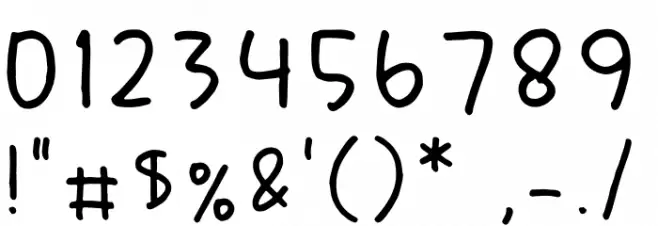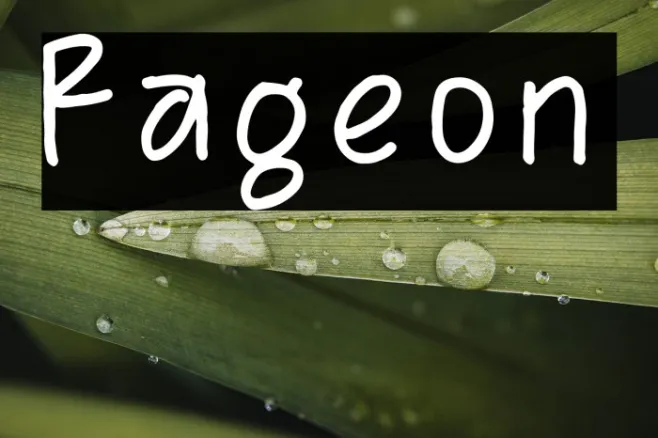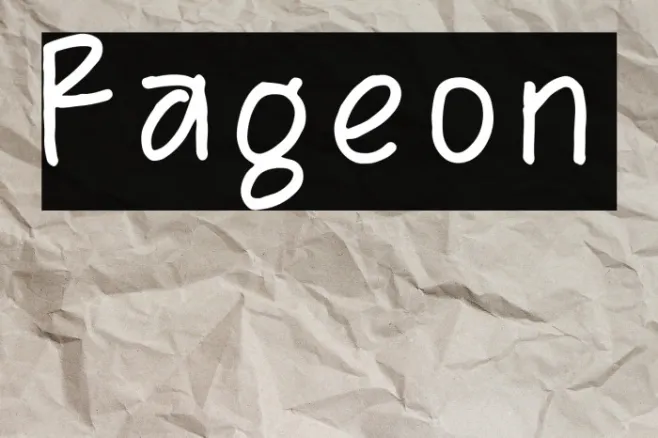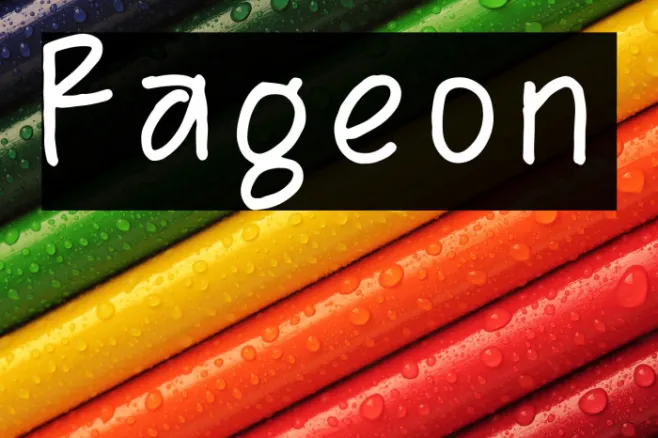
Rageon Font
Rageon Description
This font features a playful and informal handwritten style, characterized by its irregular strokes and casual appearance. The letters are slightly tilted, giving them a dynamic and lively feel. The uppercase and lowercase letters maintain a consistent style, with rounded edges and a smooth flow. Numbers and special characters are crafted with the same whimsical touch, ensuring a cohesive look throughout. The font's organic and friendly nature makes it suitable for projects that require a personal touch or a sense of approachability.
A playful, informal handwritten font with a dynamic and lively feel.
- Font: Rageon
- Proposed Projects: Ideal for greeting cards, children's books, casual invitations, and playful branding.
- Category: Handwritten
- Overall Style: Casual
- Use Case: Headlines, Informal text, Creative projects